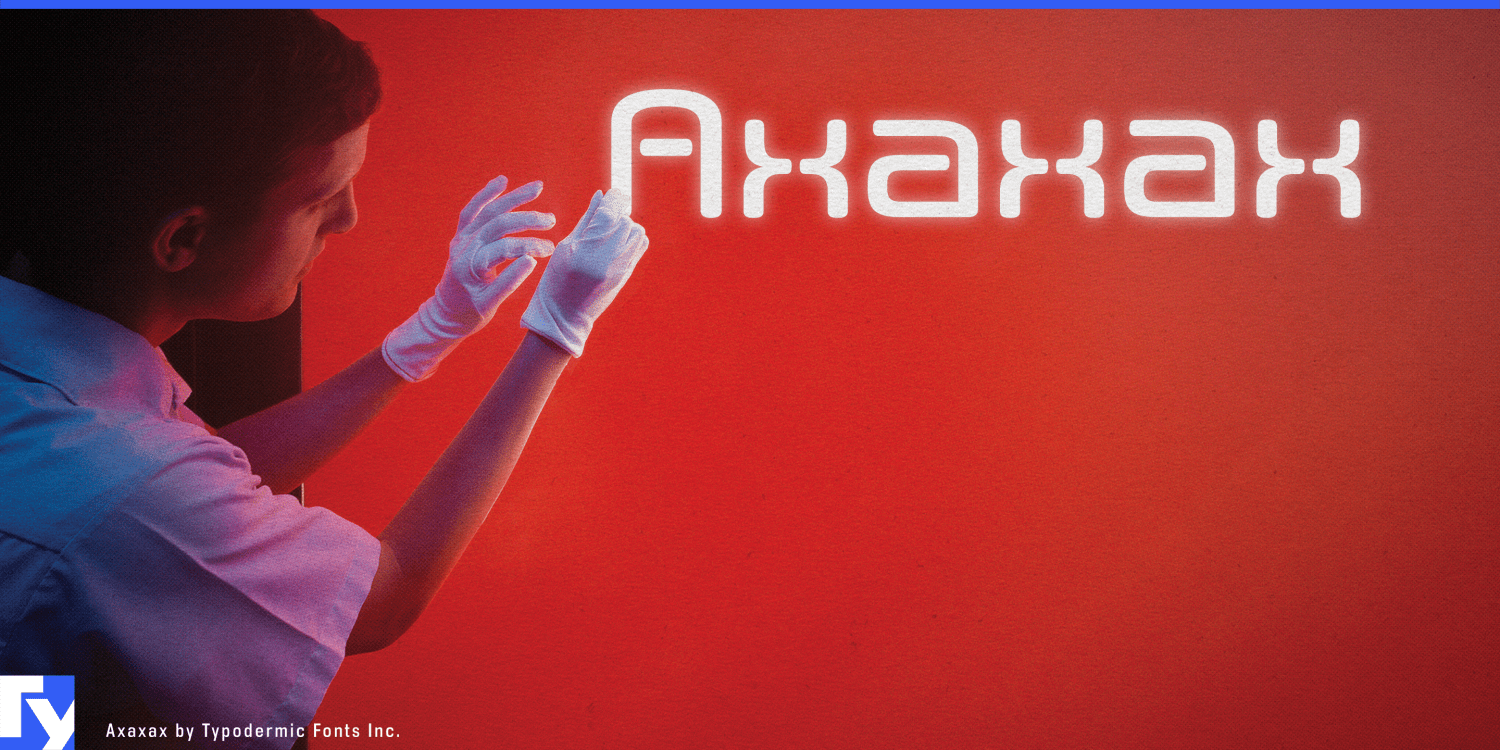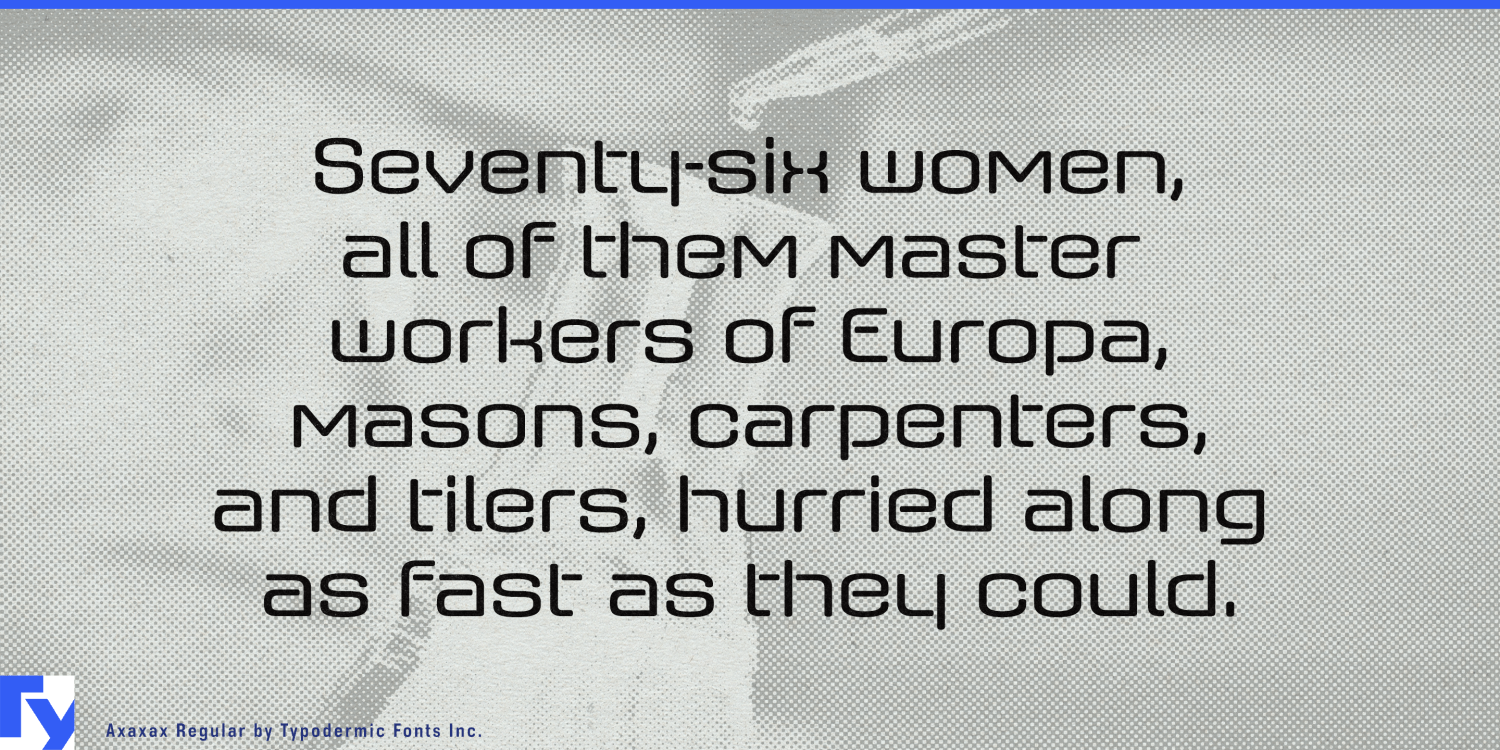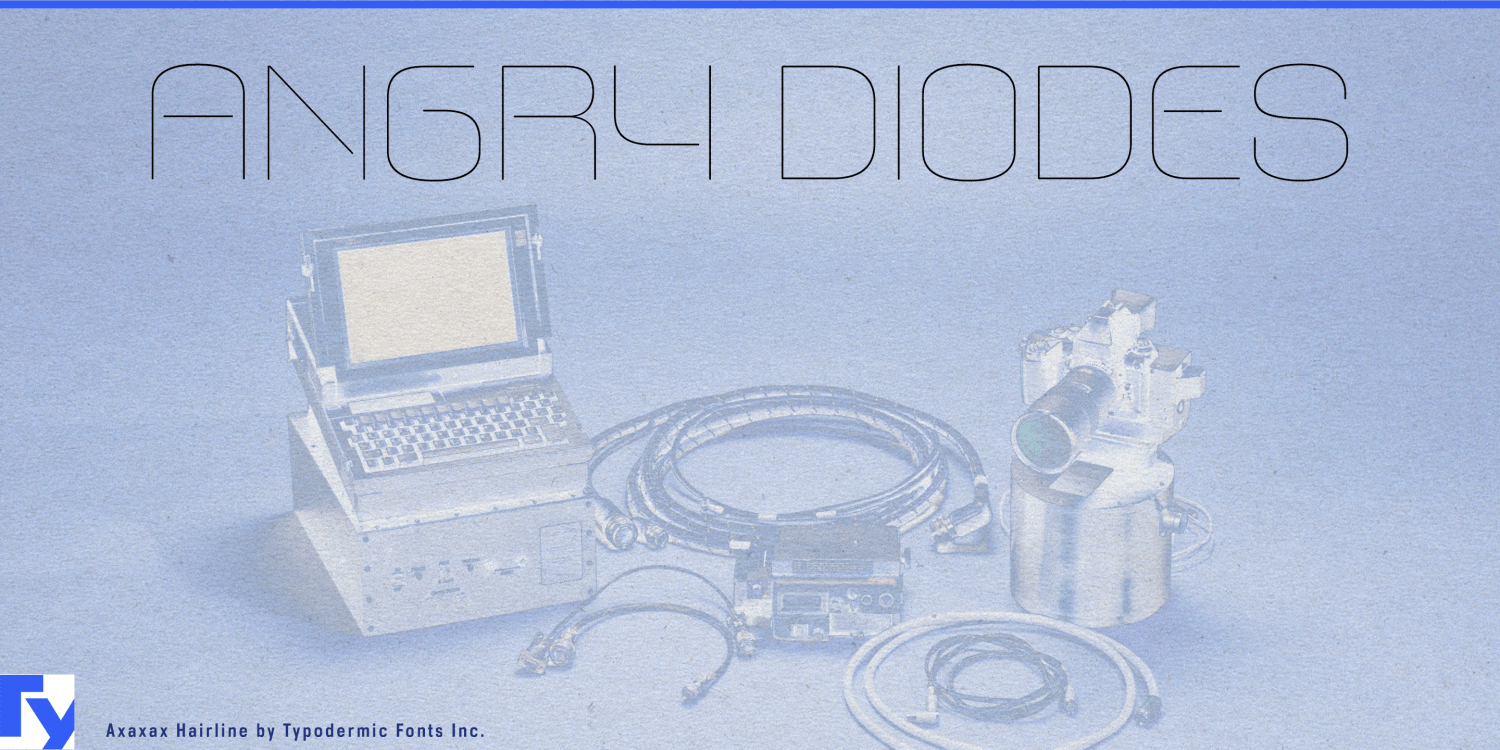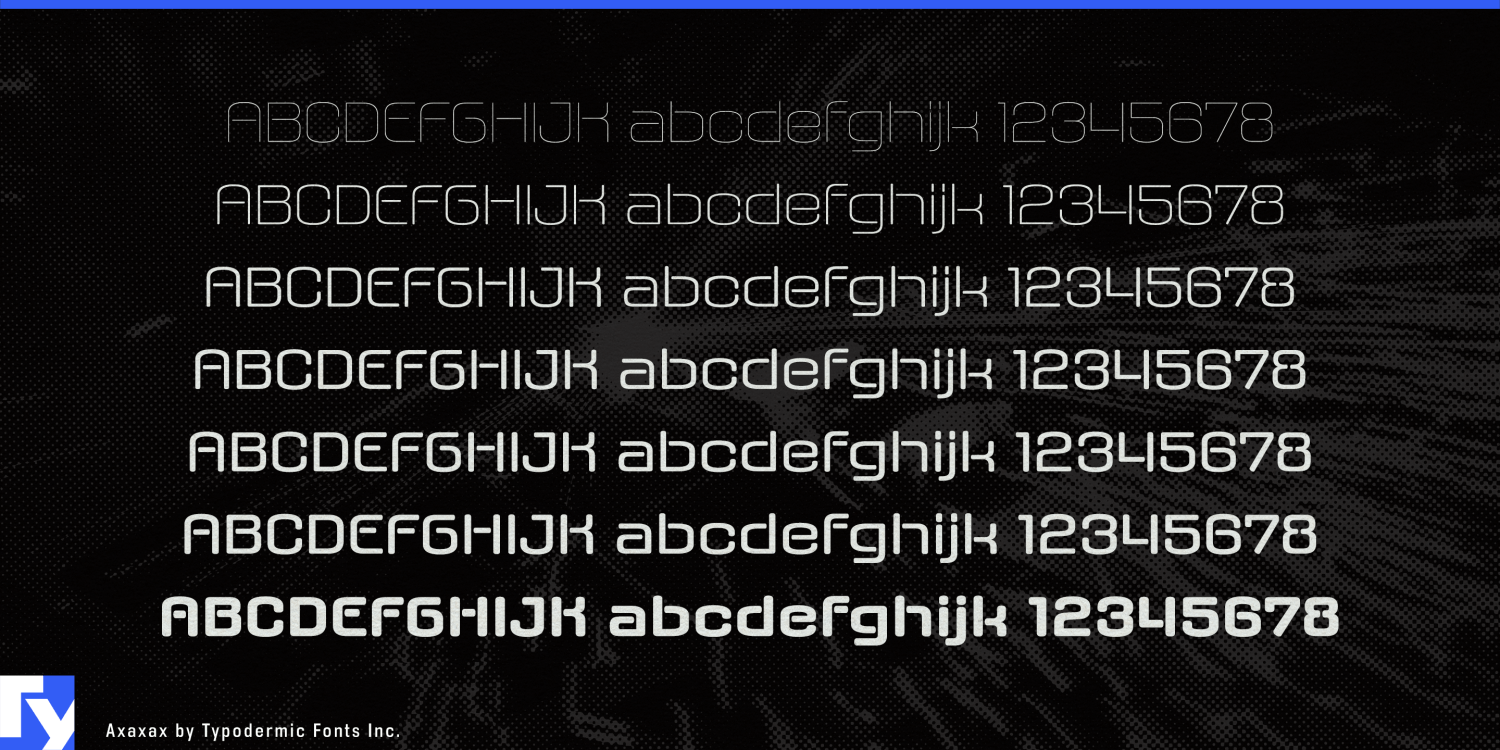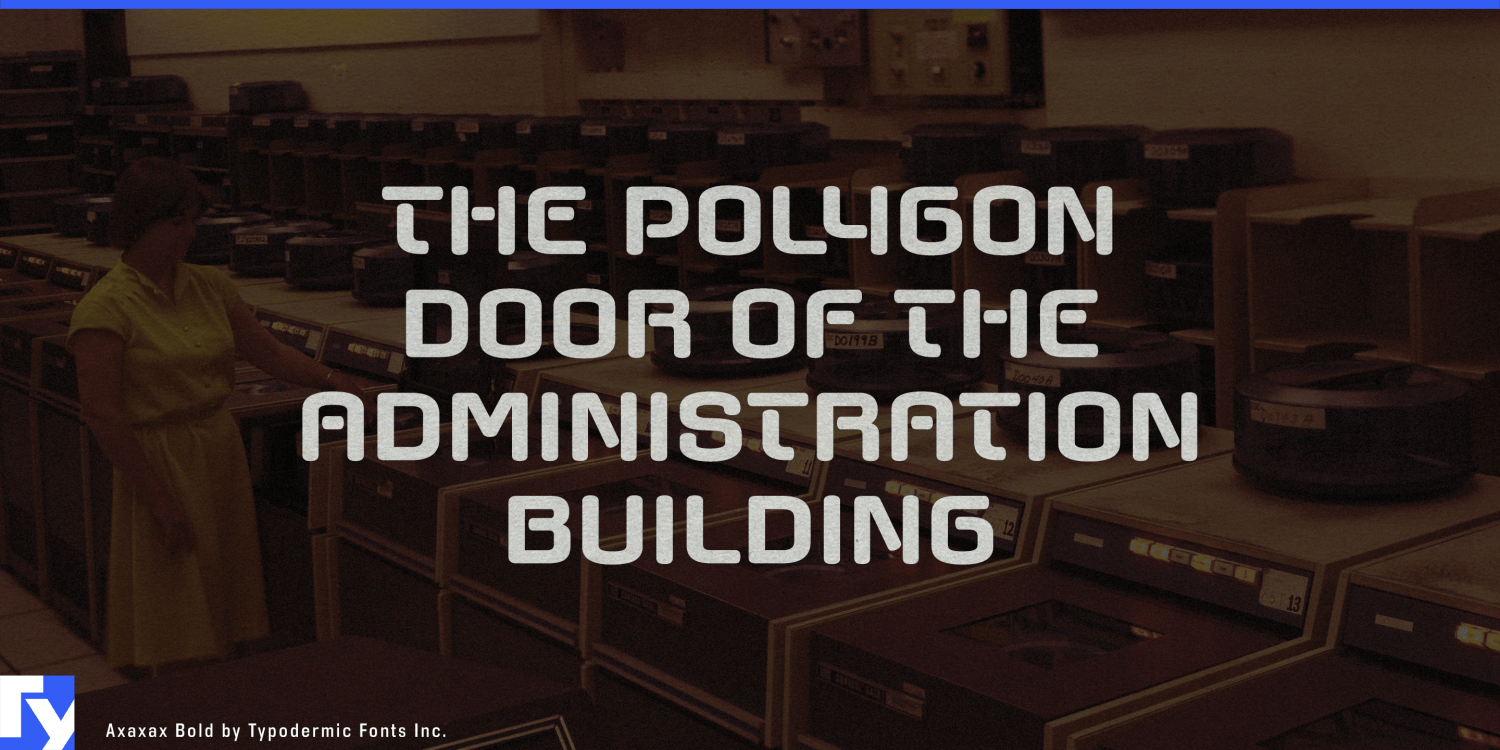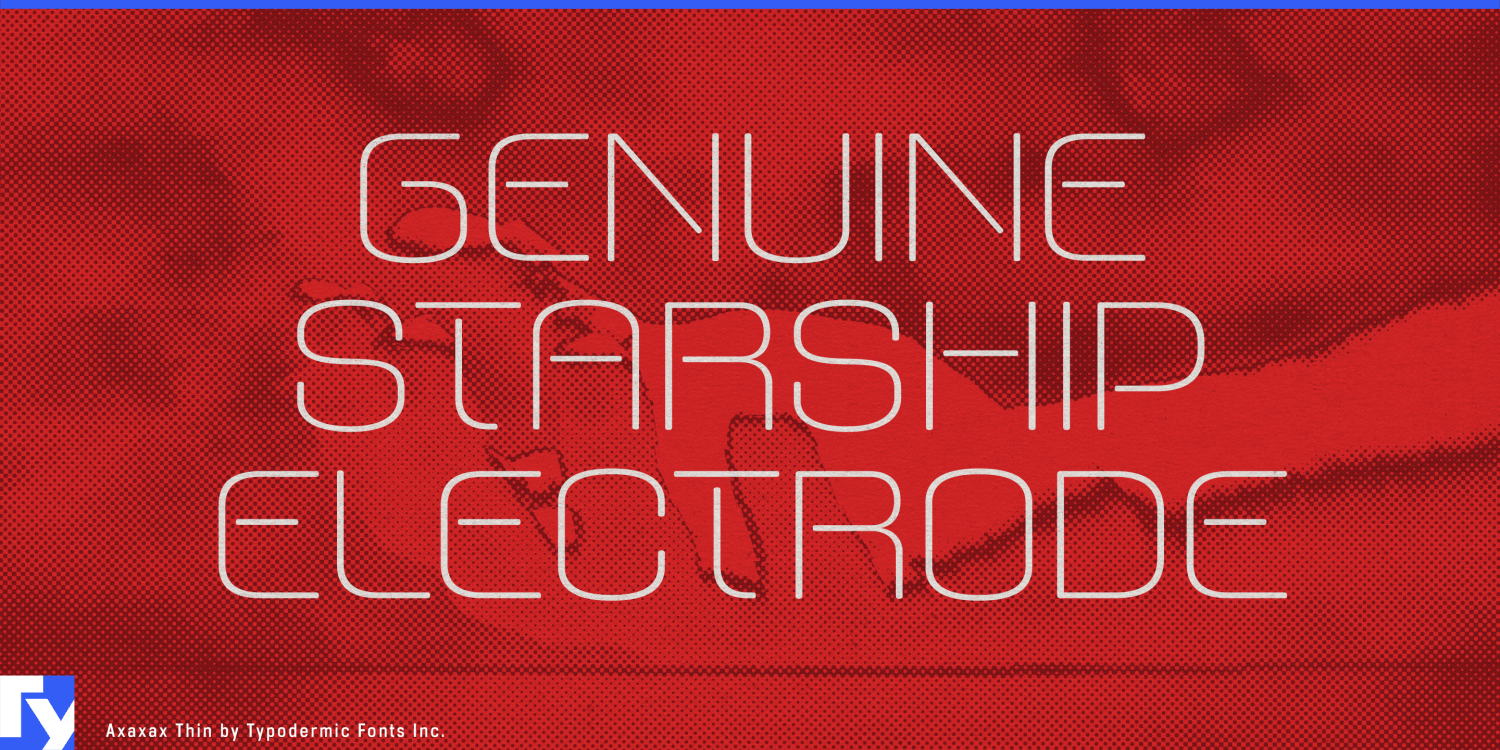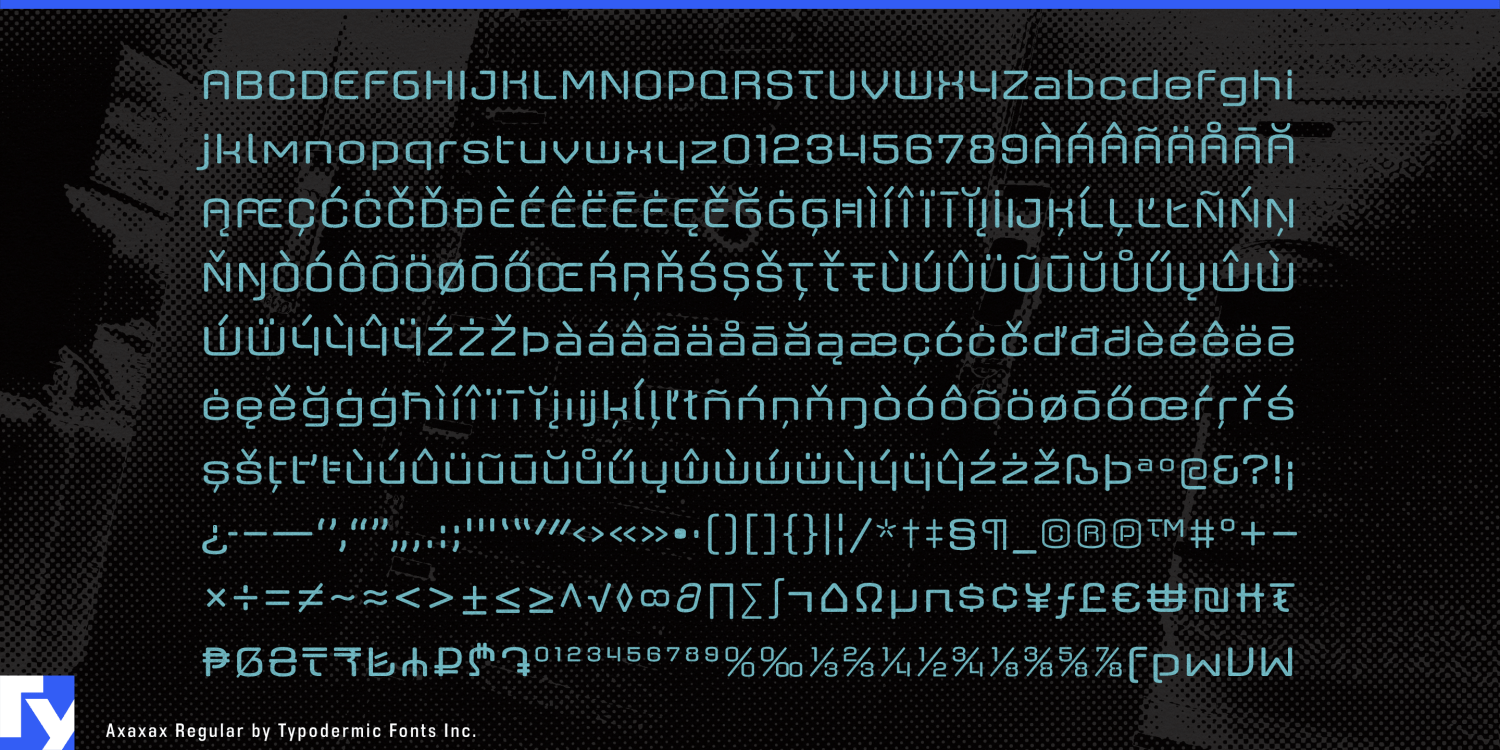
Axaxax
Advanced-technology branding often gets trapped between two familiar choices: a neutral geometric sans that could belong to almost any software company, or an angular sci-fi face that makes everything look like gaming hardware or a fictional weapons system. That leaves surprisingly little room for technologies built around light, optical signals, sensing, and precisely controlled paths.
Axaxax approaches technology through routing instead. Rounded strokes travel through the letters like illuminated tubes, plotted vectors, waveguides, or signal paths, with deliberate breaks where conventional letterforms would normally join. The result feels engineered without becoming aggressive. In the lightest weights, the construction is almost diagrammatic; as the strokes grow heavier, the same underlying routes become substantial enough for product names, exhibition graphics, and large display typography.
That makes Axaxax particularly suited to silicon photonics and the optical infrastructure surrounding AI computing. Optical-switch platforms, co-packaged optics, transceiver families, photonic engines, and high-speed interconnect systems all deal with light moving through designed routes. Hairline and Thin can accompany connection diagrams, technology presentations, and launch graphics, while heavier styles can carry platform names, conference displays, and equipment identities without changing visual language.
Semiconductor metrology and inspection offer another close fit. Wafer-inspection systems, optical measurement platforms, sensing equipment, and advanced manufacturing tools need typography that can suggest precision without looking sterile. Axaxax can give instrument names, technology families, trade-show graphics, and R&D presentations a visual connection to scanning, measurement, and controlled transmission rather than falling back on circuit-board clichés.
Its lighter weights also belong naturally to connected architectural lighting. Linear luminaires, adaptive office-lighting systems, illuminated façades, digital ceilings, and urban lighting-control products already turn paths of light into physical structures. Axaxax Hairline can behave almost like another luminous element in a showroom wall, specification-book cover, or exhibition installation; heavier styles can carry the same identity into collection names and display headlines.
Laser projection, projection mapping, media servers, immersive exhibitions, arena visuals, and themed-entertainment systems extend the same idea into professional visual production. Axaxax can handle system names, audiovisual trade-show graphics, projected titles, and stage-screen typography, while its separated routes invite motion treatments in which characters are traced, illuminated, or assembled segment by segment.
Science-fiction production remains a credible secondary role. Fictional laboratories, research institutes, spacecraft systems, planetary infrastructure, and other technological environments can use Axaxax without resorting to the sharper, militarized conventions of many sci-fi faces.